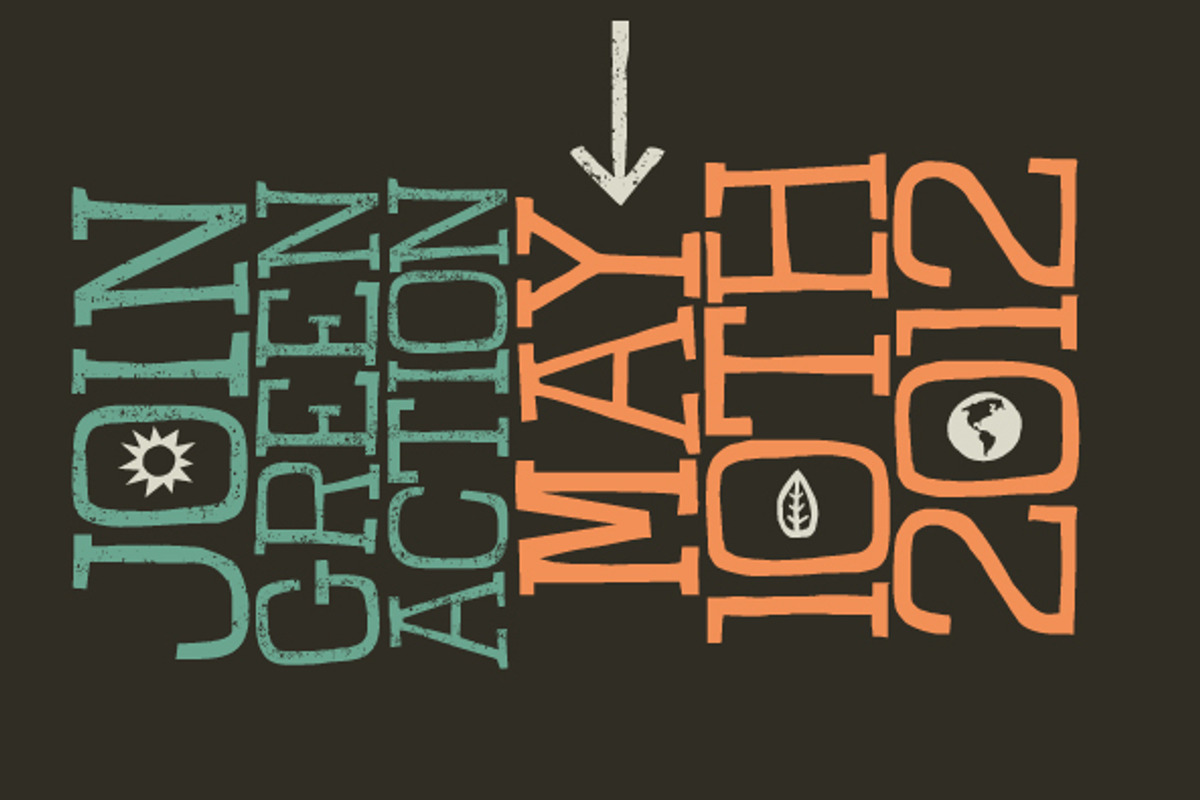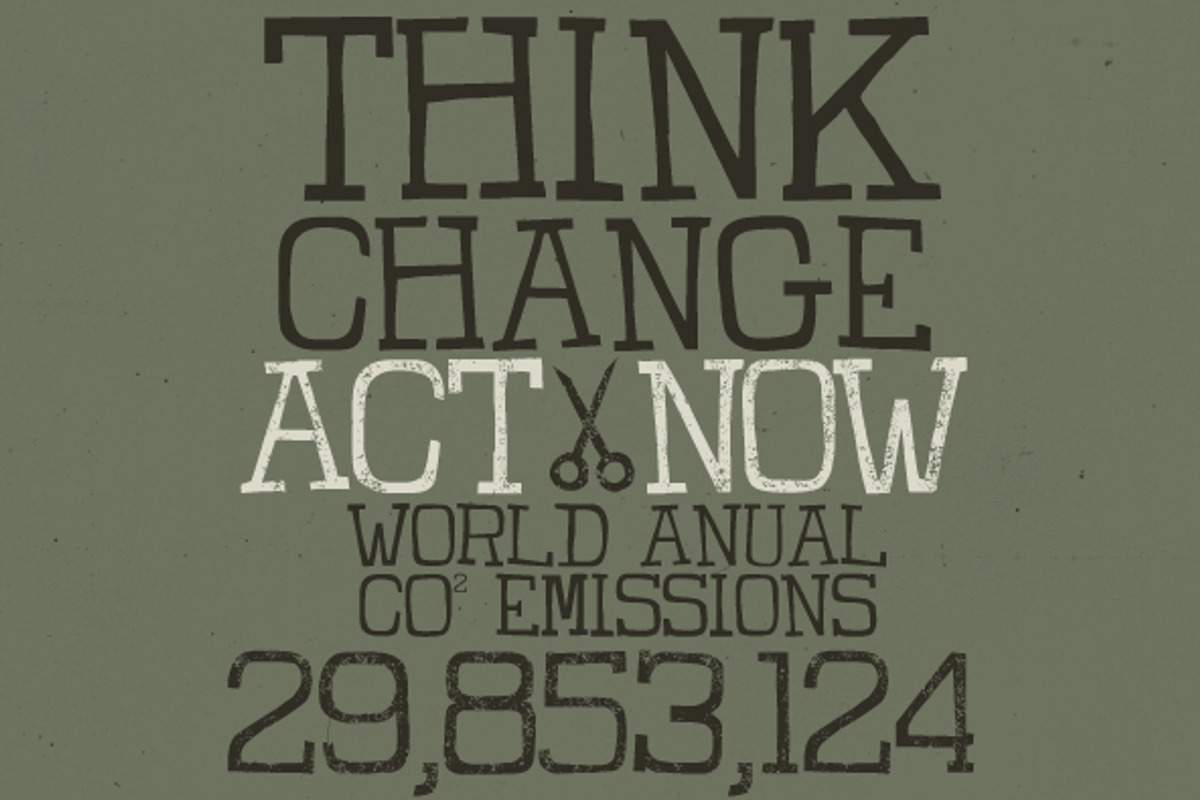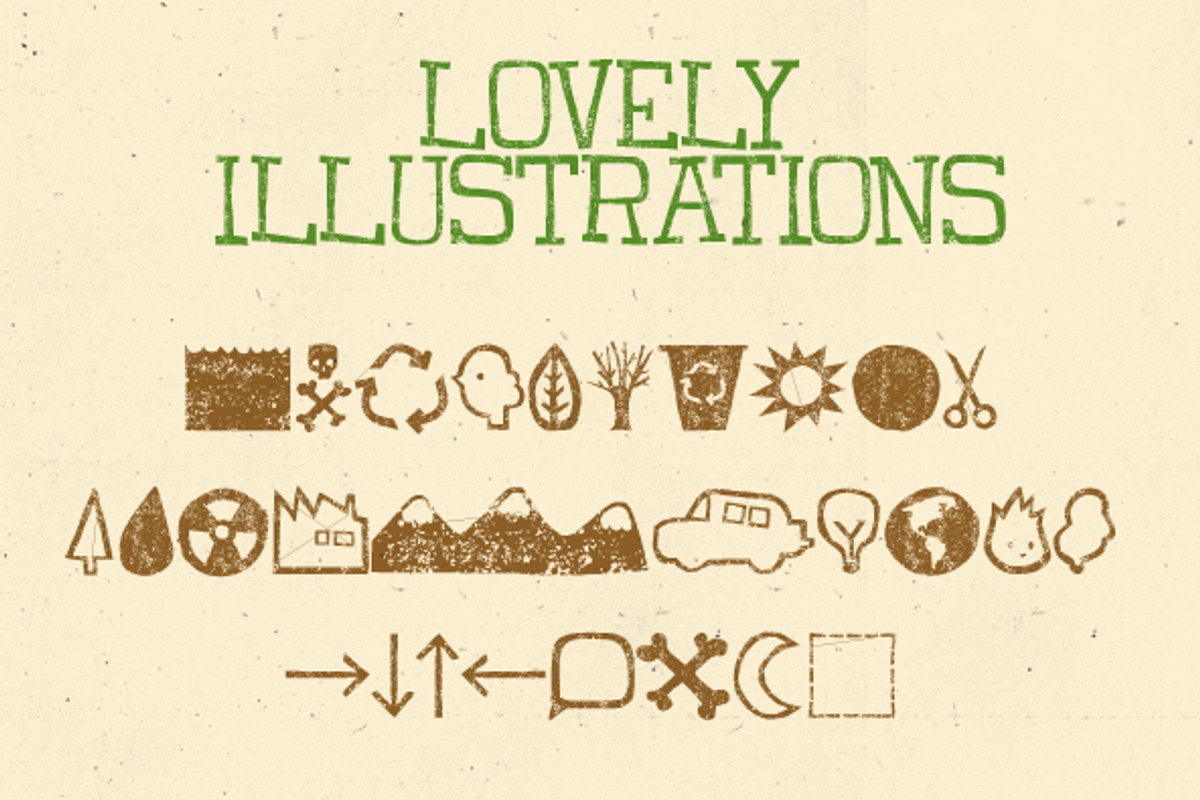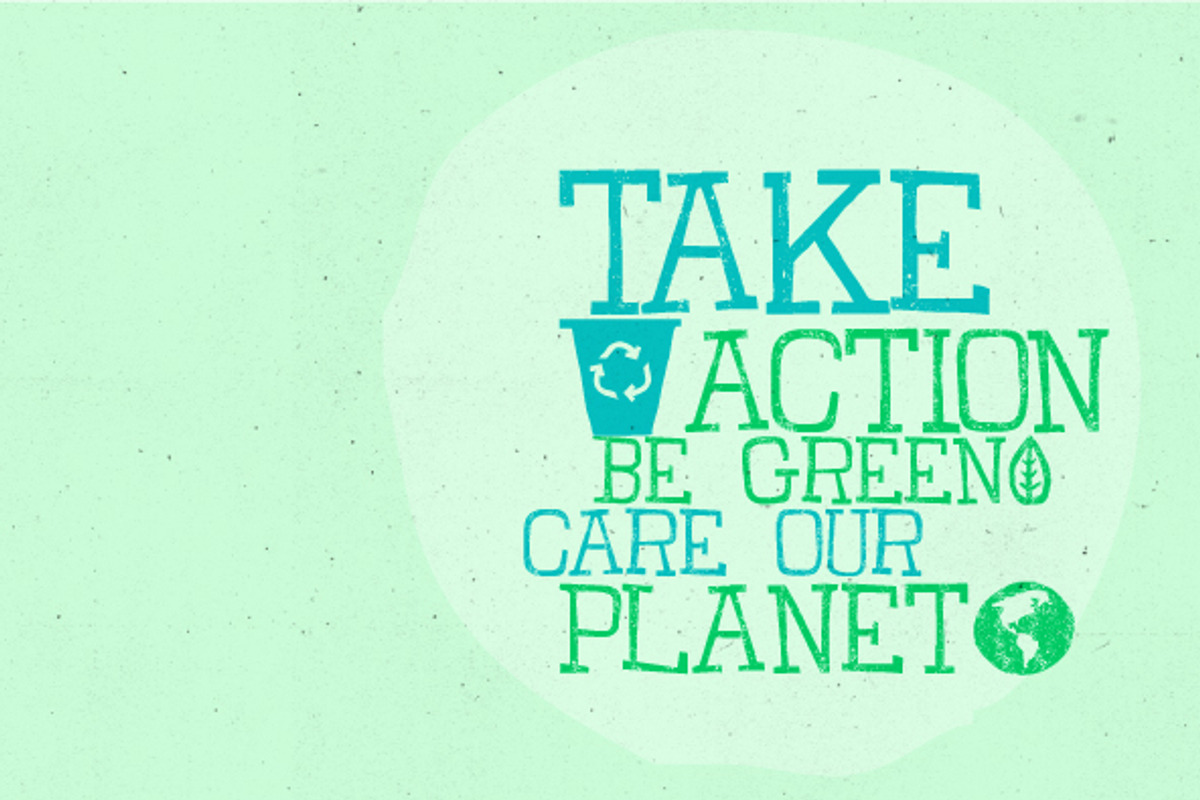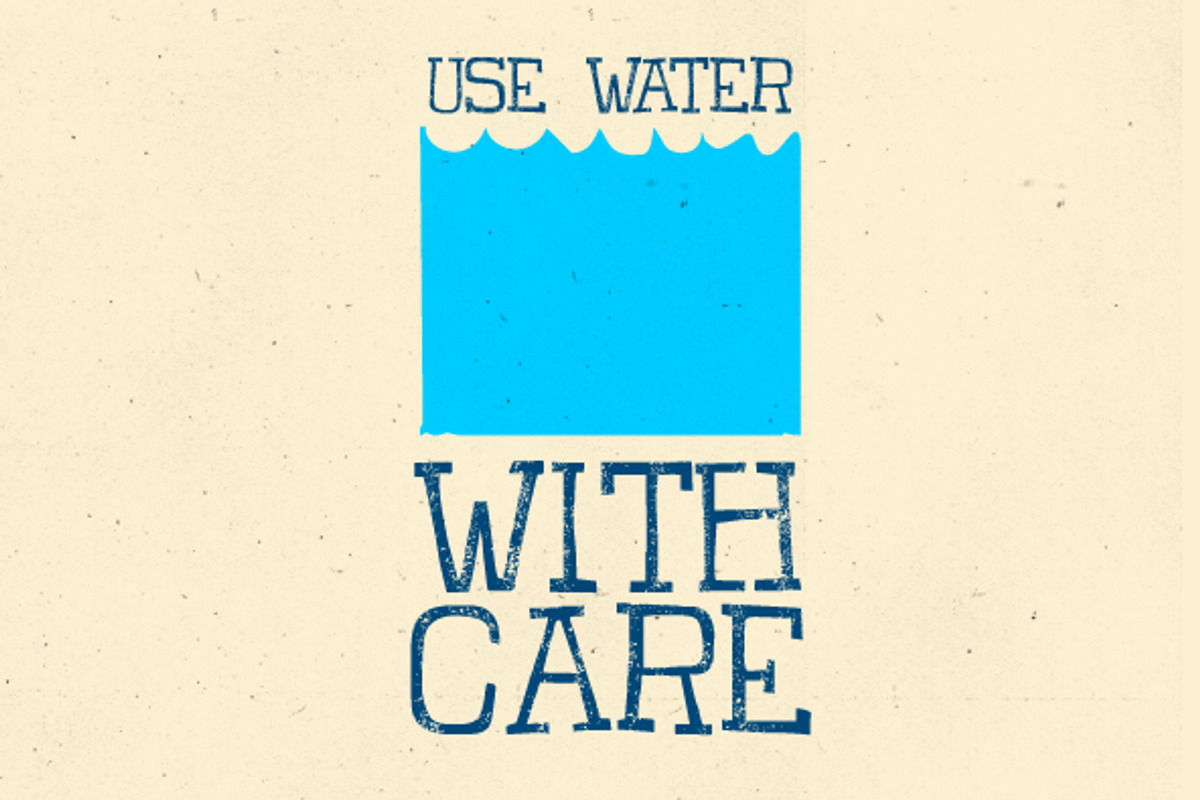
TOMO Claire
TOMO Claire by TOMO Fonts is a font selected for branding, posters, packaging, typography.
Why TOMO Claire is worth a look
TOMO Claire by TOMO Fonts fits naturally into Branding, posters, packaging, typography.